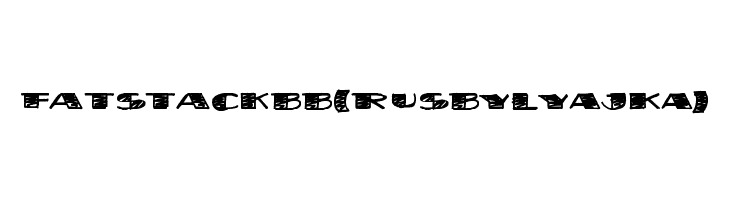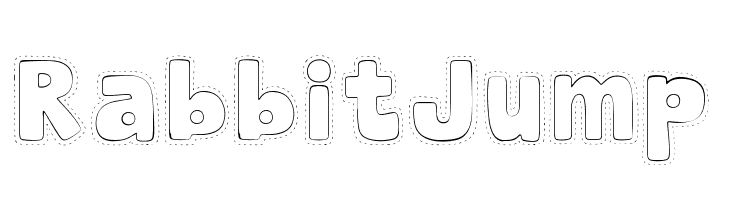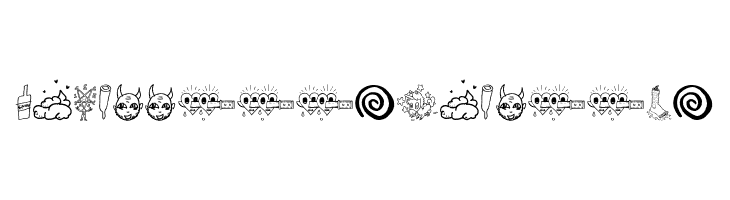
A playful, hand-drawn outline font with a whimsical and artistic style.
A sketch-like, hand-drawn font with a playful and artistic style.
A playful, rounded font with dotted outlines, perfect for fun and friendly designs.
A playful, doodle-based decorative font with unique illustrations for each character.
A doodle and graffiti-inspired decorative font with playful illustrations.
A playful, hand-drawn font with a sketch-like, textured appearance.
A bold, playful font with decorative, textured characters.
A bold, hand-drawn font with a playful, textured design.
A bold, cartoonish font with a hand-drawn, three-dimensional style.
A bold, playful, hand-drawn font with a doodle-like style.